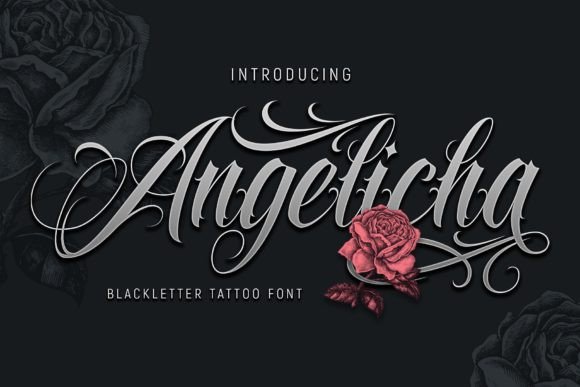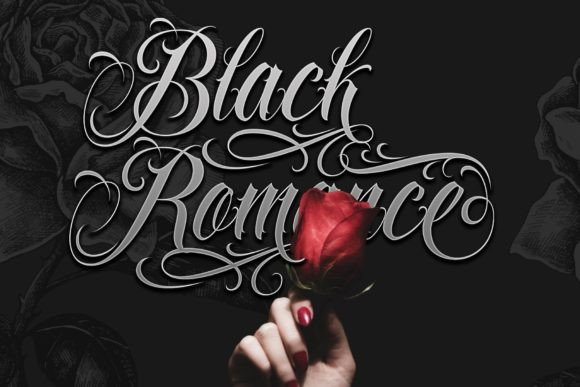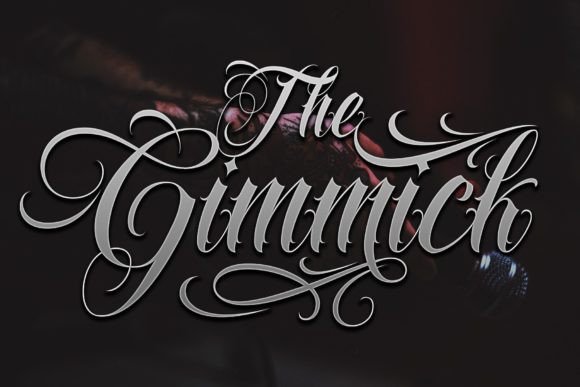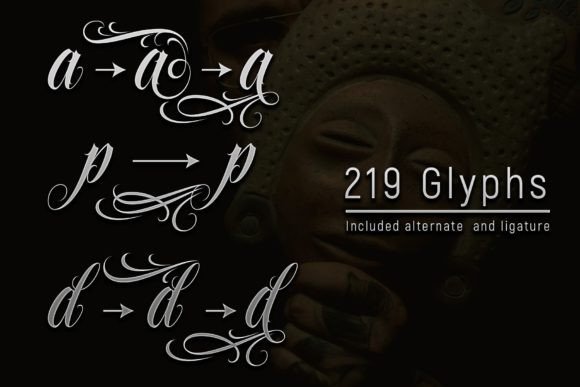
Angelicha Font: Unique Blackletter Typography for Tattoo & Logo Design
About the Angelicha Font
Make a bold statement with Angelicha Font, a powerful and memorable font. Angelicha is a contemporary blackletter tattoo font that feels right at home on logos, t-shirt designs, posters, flyers, and other brand identity items. Add it confidently to your projects, and you will love the results.
Angelicha’s bold, gothic aesthetic makes it ideal for projects requiring a strong, memorable visual impact. It excels in headlines, logos, and short, impactful text on posters or packaging where its decorative qualities can shine. Avoid using it for body text or lengthy paragraphs; its intricate details can become visually overwhelming at smaller sizes.
Its rebellious yet sophisticated personality pairs well with clean sans-serifs like Montserrat or Open Sans for a balanced contrast. For a more harmonious pairing, consider a classic serif like Garamond or a slightly more modern serif like Lora to soften its intensity while maintaining a sense of elegance.
Brands with a bold, edgy identity, such as those in the fashion, music, or tattoo industries, will find Angelicha particularly effective. The font’s dark and slightly aggressive style might not be suitable for projects needing a gentler, more approachable feel.
Angelicha Font Usage Examples
Angelicha Font Example